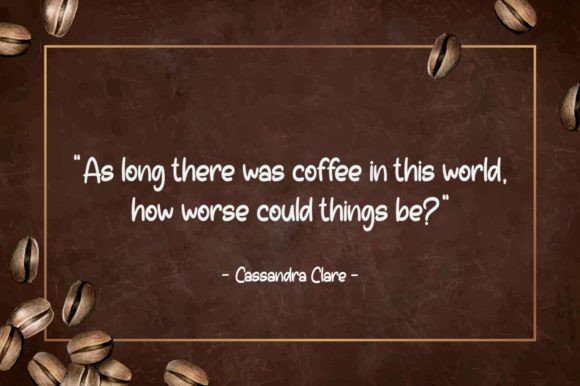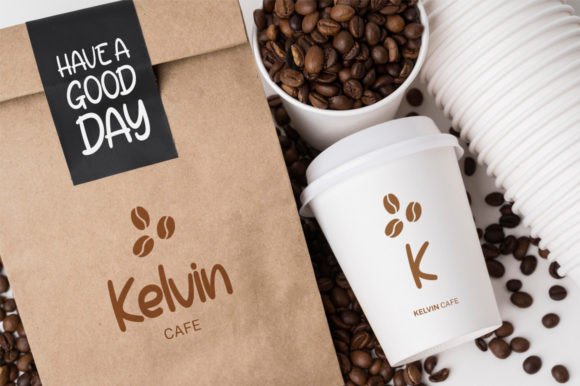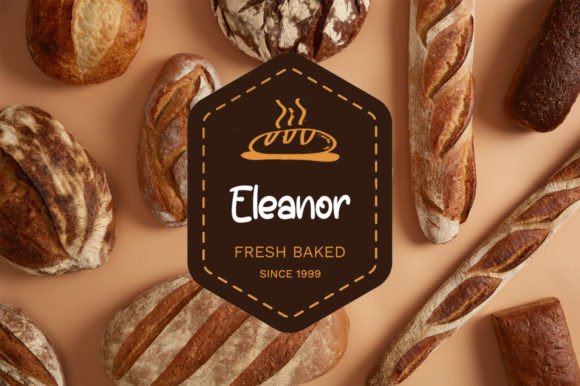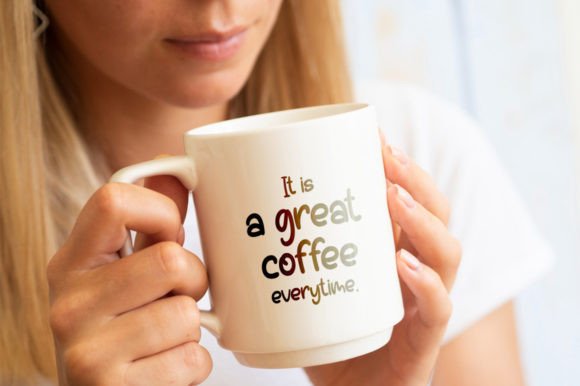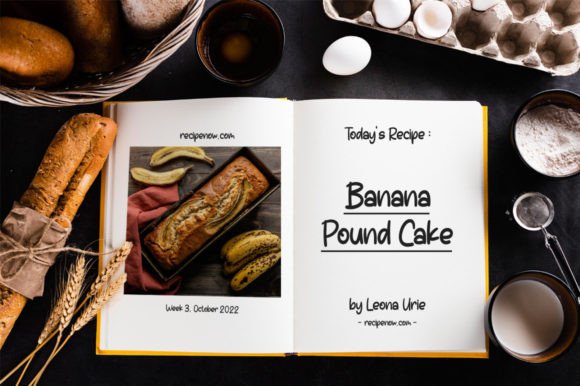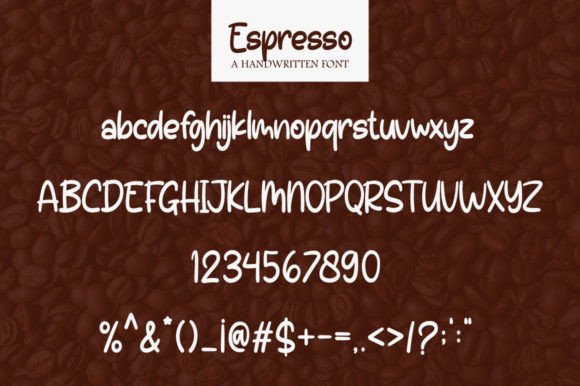
Introducing Espresso Font: The Perfect Handwritten Font for Chalkboard Quotes and Teaching Materials
Are you a designer, teacher, or crafter looking for a font that can add a personal and realistic touch to your designs? Look no further than Espresso Font! This delicate and simple-lettered handwritten font is perfect for creating chalkboard quotes, teaching materials, and other designs that require a authentic look.
What is Espresso Font?
Espresso Font is a beautiful handwritten font that is designed to mimic the look of chalkboard writing. Its delicate and simple lettering makes it perfect for creating a wide range of designs, from inspirational quotes to teaching materials. The font is highly legible, making it easy to read and understand, even at small sizes.
Key Features of Espresso Font
- Delicate and Simple Lettering: Espresso Font features delicate and simple lettering that is perfect for creating chalkboard-style designs.
- Handwritten Look: The font has a handwritten look that adds a personal and realistic touch to your designs.
- Highly Legible: Espresso Font is highly legible, making it easy to read and understand, even at small sizes.
- Perfect for Chalkboard Quotes: The font is perfect for creating chalkboard quotes, teaching materials, and other designs that require a authentic look.
Uses of Espresso Font
Espresso Font can be used for a wide range of design projects, including:
- Chalkboard Quotes: Create inspirational quotes, motivational messages, and other chalkboard-style designs.
- Teaching Materials: Use Espresso Font to create teaching materials, such as worksheets, handouts, and presentations.
- Crafting Projects: Add a personal touch to your crafting projects, such as scrapbooking, card making, and journaling.
- Graphic Design: Use Espresso Font in your graphic design projects, such as brochures, flyers, and posters.
Benefits of Using Espresso Font
Using Espresso Font in your designs offers a number of benefits, including:
- Unique and Authentic Look: Espresso Font adds a unique and authentic look to your designs, setting them apart from others.
- Easy to Read: The font is highly legible, making it easy to read and understand, even at small sizes.
- Versatile: Espresso Font can be used for a wide range of design projects, from chalkboard quotes to graphic design.
- Time-Saving: Using a pre-designed font like Espresso Font can save you time and effort in your design projects.
- Use a Large Size: For best results, use Espresso Font at a large size, such as 24 points or larger.
- Experiment with Colors: Try using different colors to add depth and interest to your designs.
- Add Texture: Consider adding texture to your designs to give them a more authentic look.
Espresso Font is a beautiful and versatile handwritten font that is perfect for designers, teachers, and crafters. Its delicate and simple lettering makes it perfect for creating chalkboard quotes, teaching materials, and other designs that require a authentic look. With its highly legible design and wide range of uses, Espresso Font is a great addition to any designer’s toolkit.